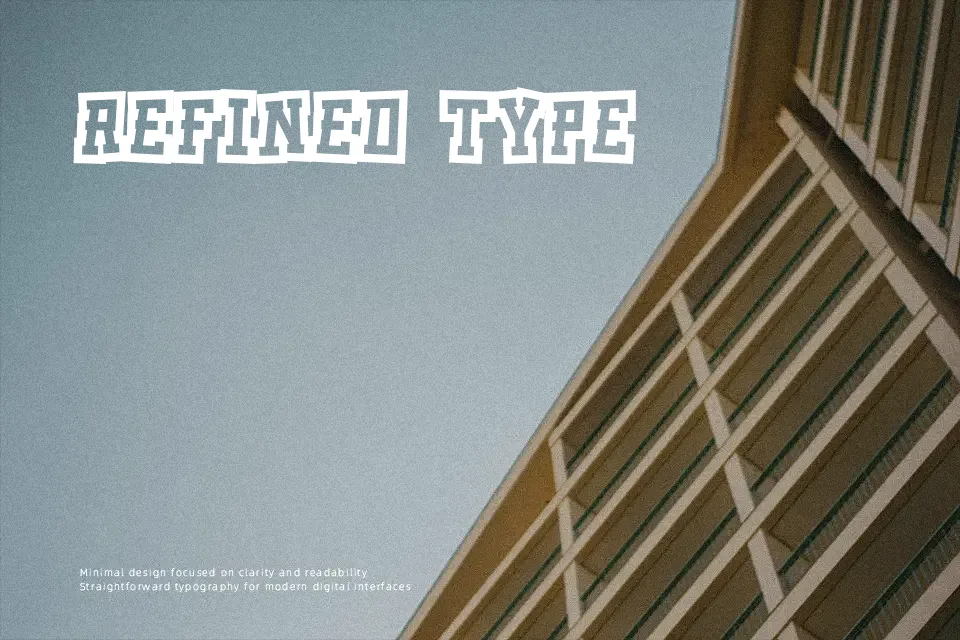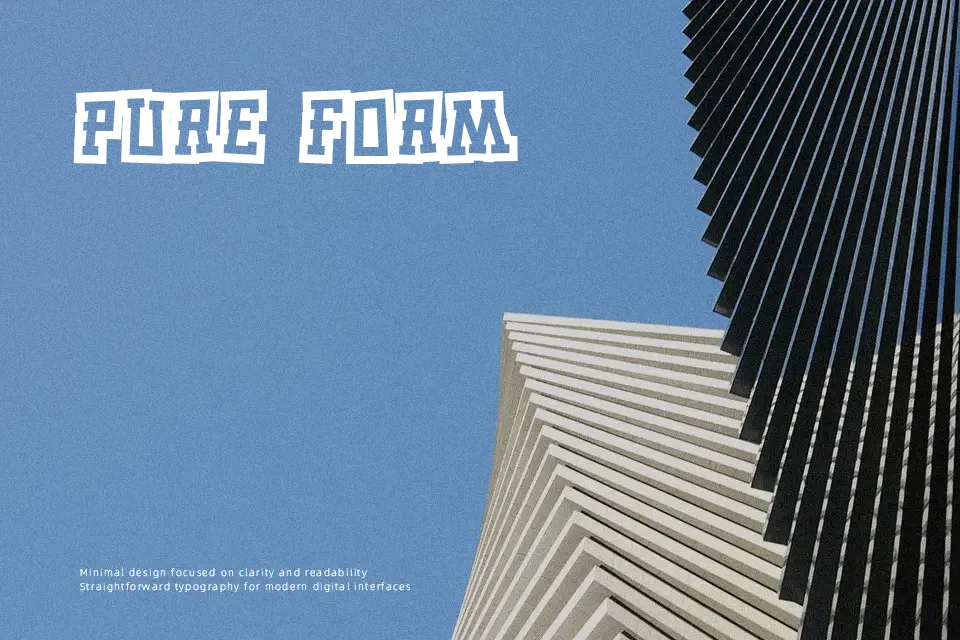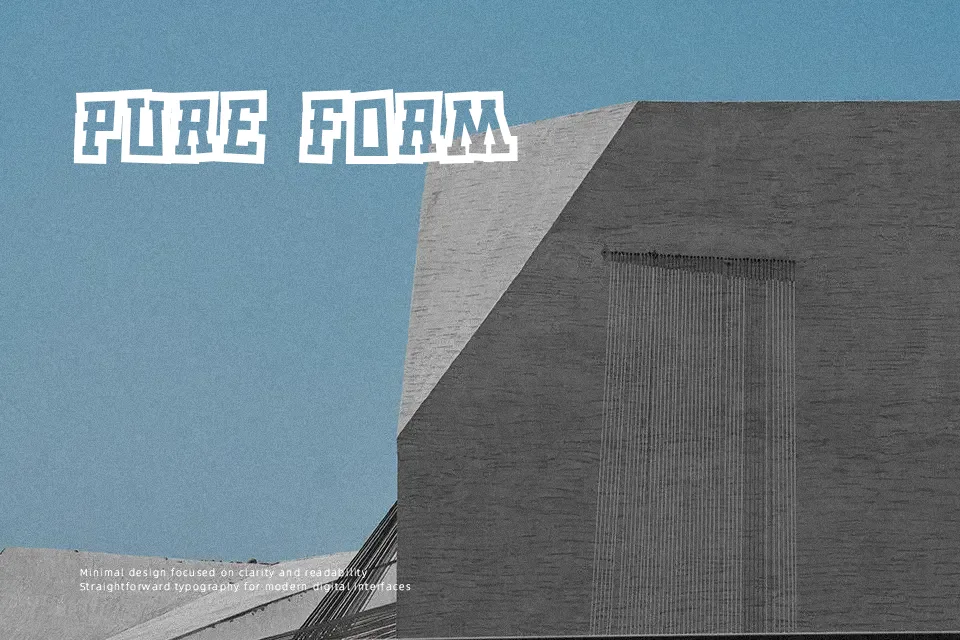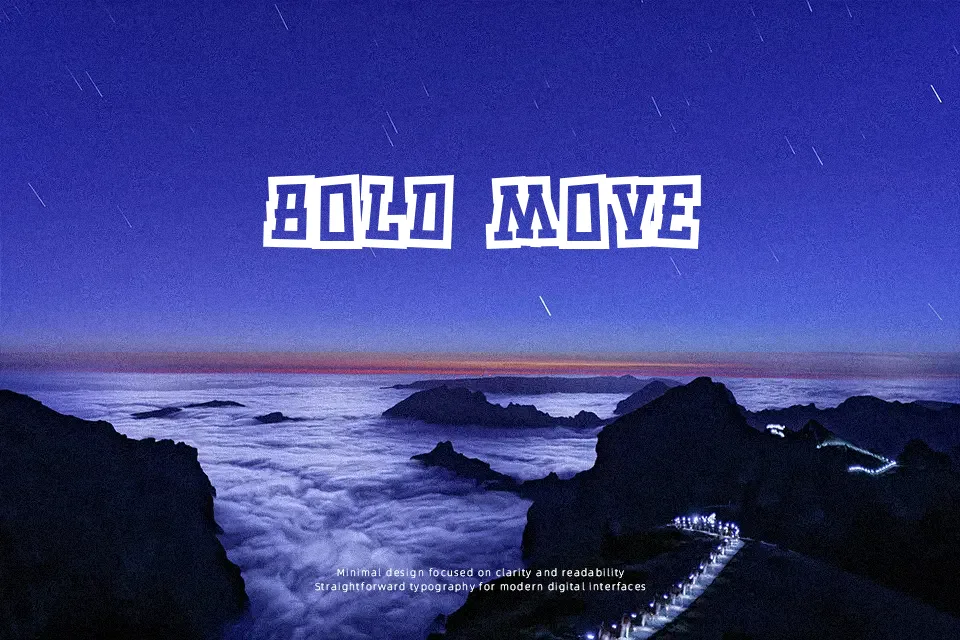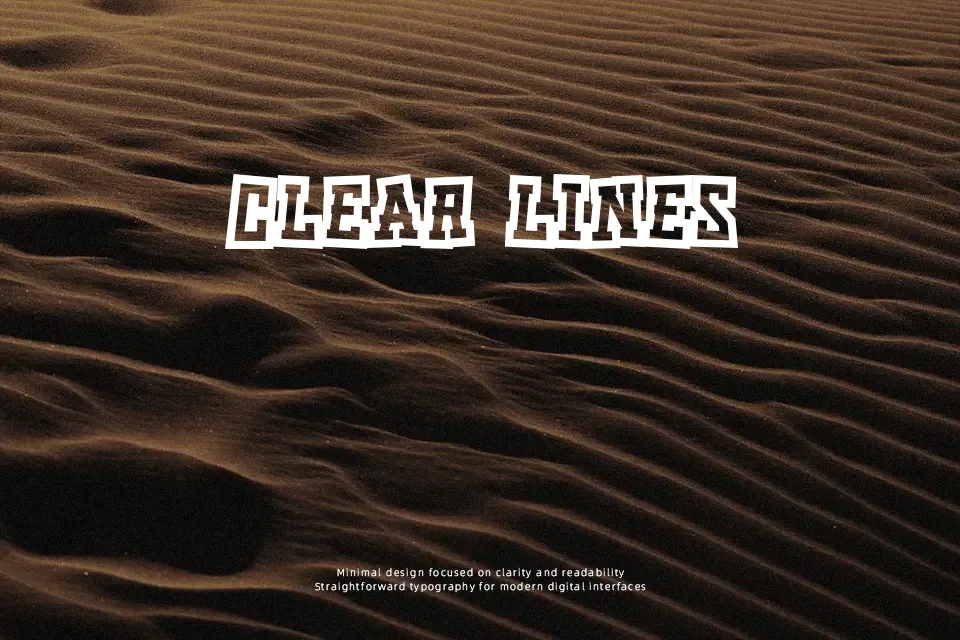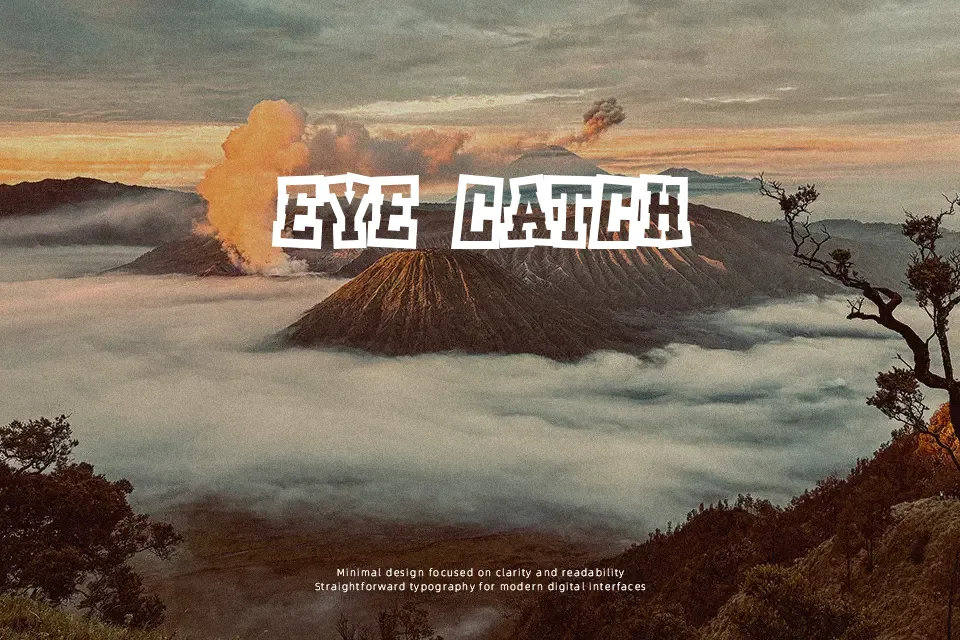
Road Trip Font
Road Trip Font presents a casual and quirky visual structure, featuring clean strokes with a distinctly playful rhythm. The letterforms maintain consistent proportions, ensuring that the overall design remains approachable and highly readable. Balanced spacing allows the characters to breathe, preventing visual clutter in denser typographic arrangements. This typeface performs exceptionally well in logo design, energetic branding, and bold poster headlines where a friendly aesthetic is desired. However, the slightly informal nature of the strokes makes it less effective for dense paragraph text or highly technical documents. The balanced character proportions help maintain clarity in larger headlines, making it a reliable choice for creative display purposes.
energetic branding
social media graphics
creative packaging
poster headlines
technical documentation
formal corporate reports
Perfect for branding, headline, and logo, with a clean and display style.